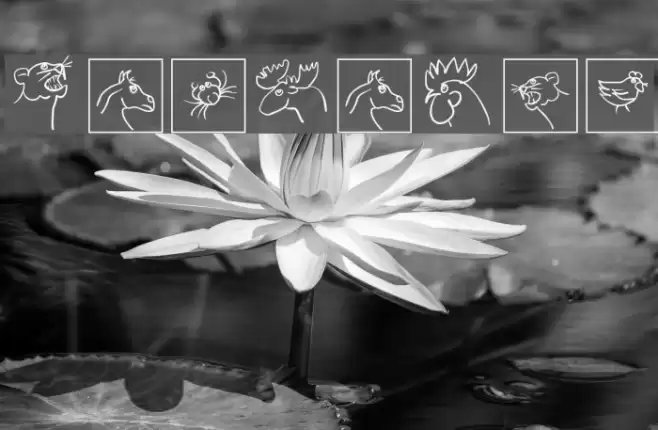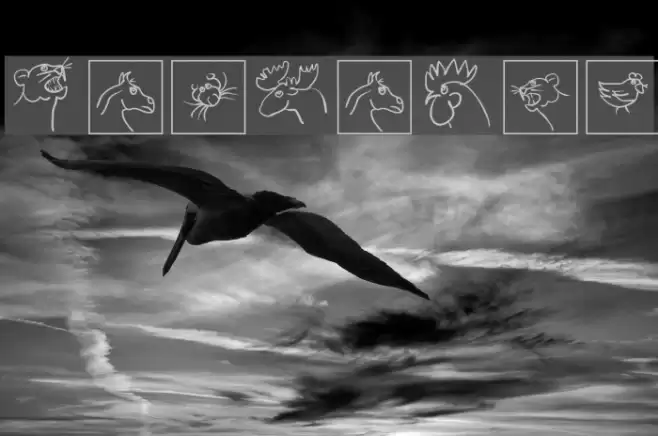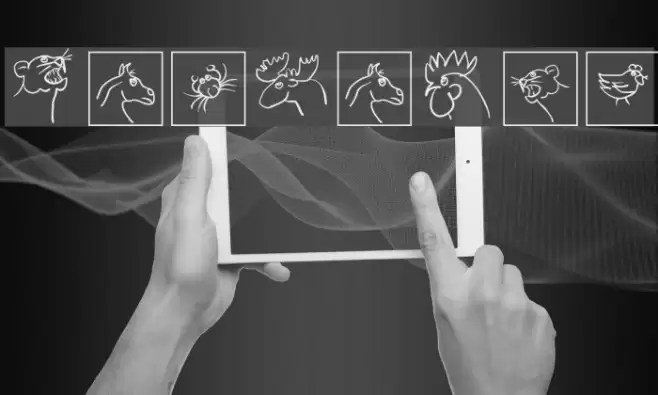
Tierisch Font
Tierisch Description
A decorative font composed of whimsical, hand-drawn animal illustrations representing each character, with a playful and sketch-like line quality. Each glyph is a unique animal drawing, often enclosed in a square or left open, with consistent line thickness and minimal detail.
Playful, hand-drawn animal illustration font from Uncategorized fonts.
- Proposed Projects: Children’s books, educational materials, animal-themed party invitations, playful branding, creative posters.
- Overall Style: Decorative, Whimsical, Hand-drawn
- Use Case: Logos, Posters, Educational Materials, Themed Headlines